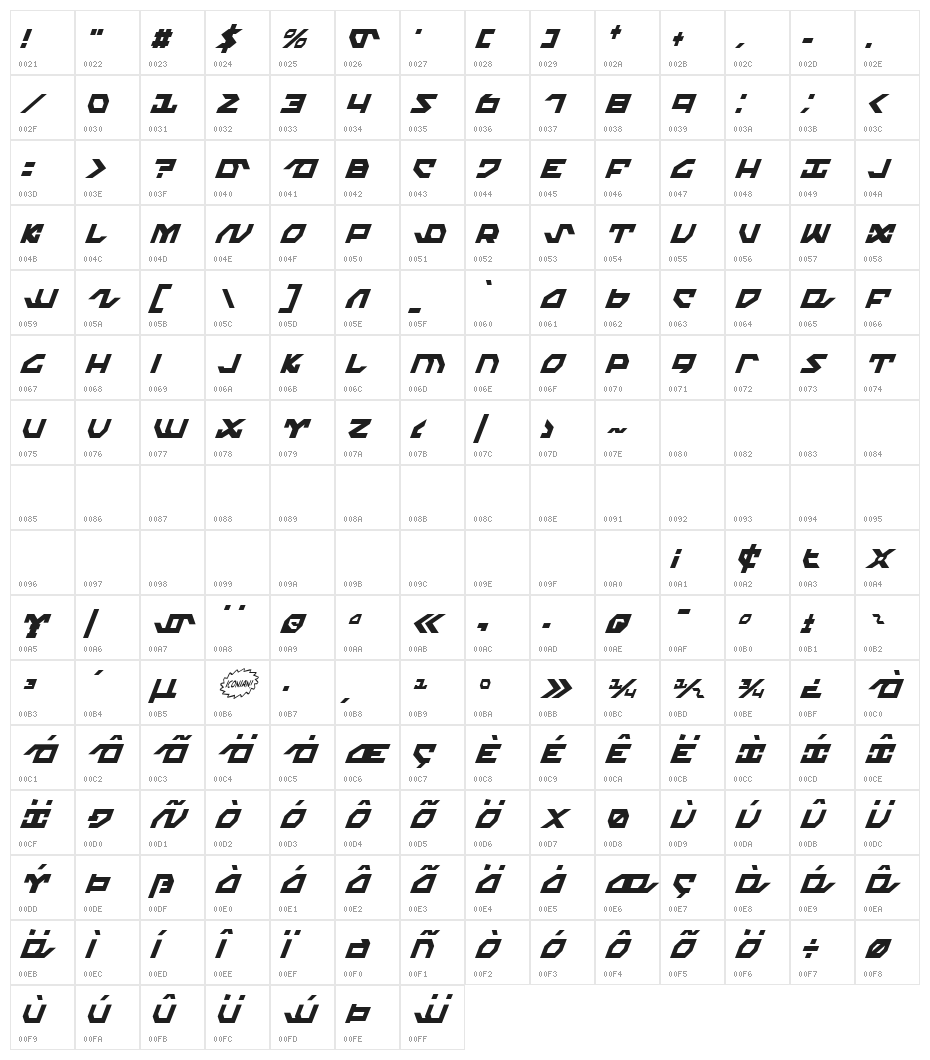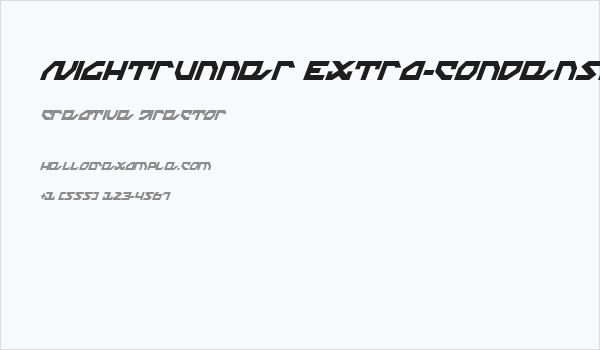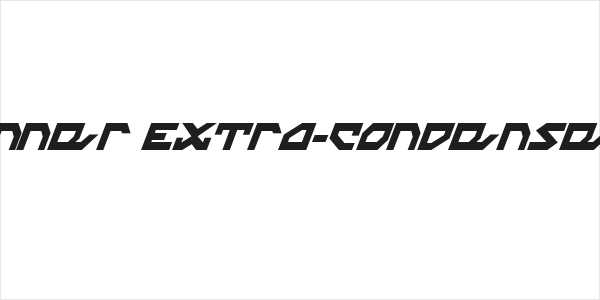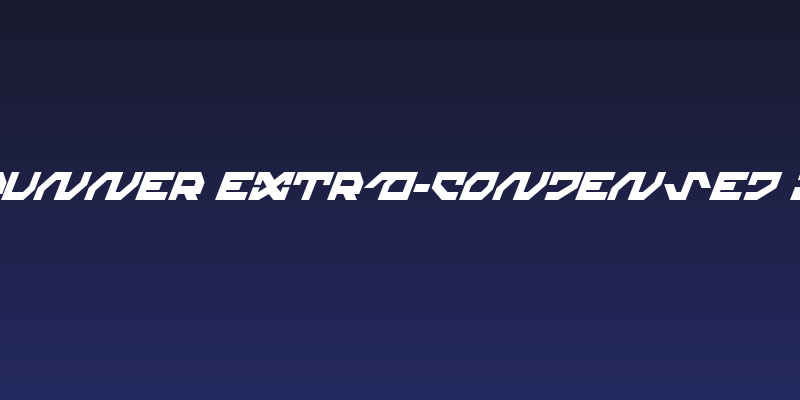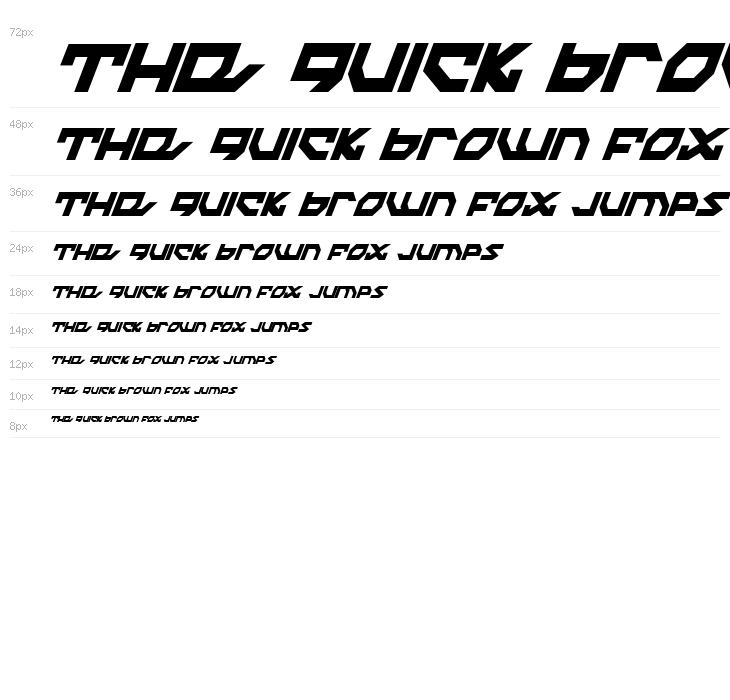
Nightrunner Extra-Condensed Italic Font
Nightrunner Extra-Condensed Italic Description
This font features a dynamic and futuristic design with sharp, angular lines and a distinct italic slant. The characters are extra-condensed, giving them a sleek and compact appearance. The bold strokes and geometric shapes create a sense of speed and modernity, making it ideal for projects that require a cutting-edge look. The uppercase and lowercase letters maintain a consistent style, while the numerals and special characters complement the overall aesthetic. This font's unique style is perfect for creating eye-catching headlines and logos.
Proposed ProjectsIdeal for sci-fi themed designs, technology branding, video game titles, and modern advertising.